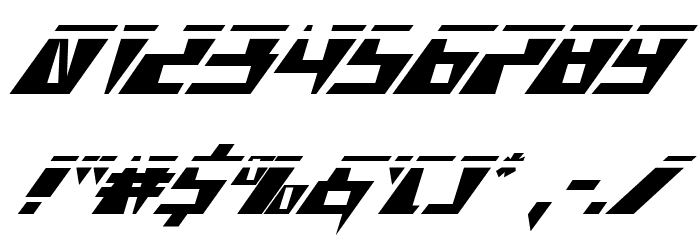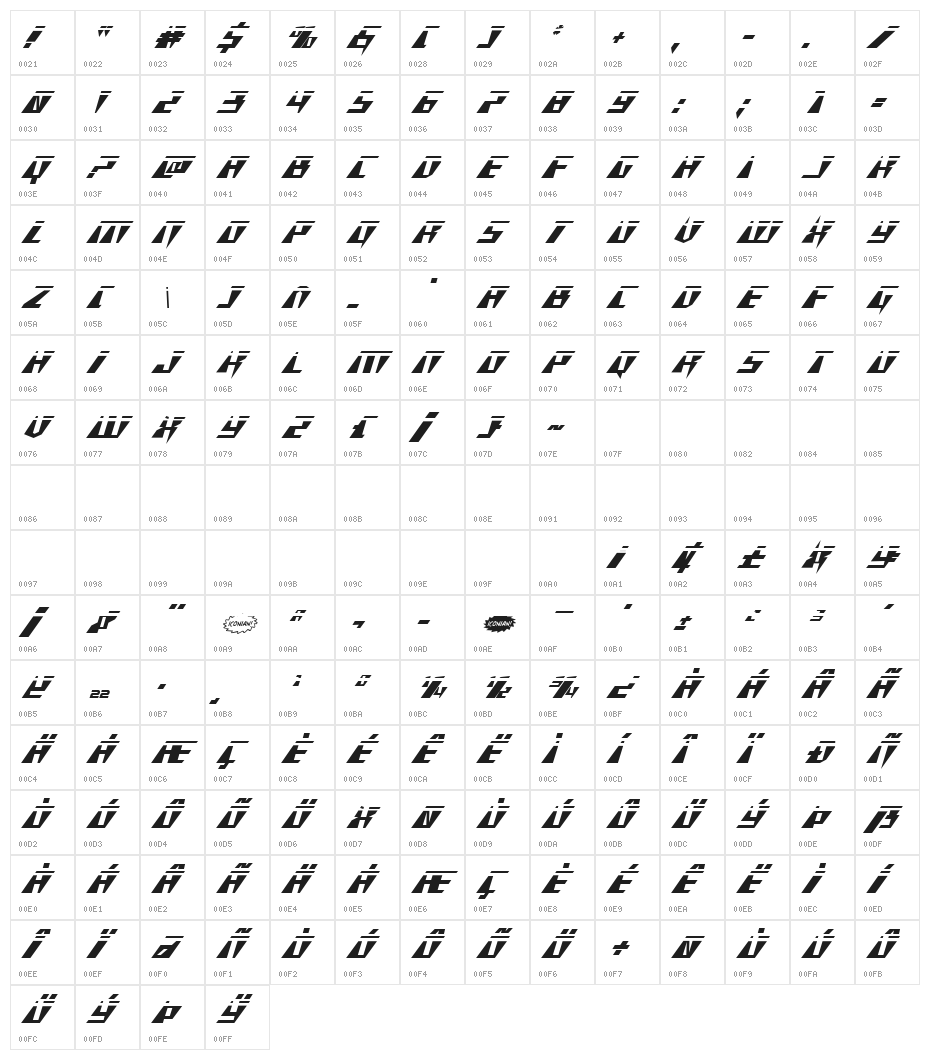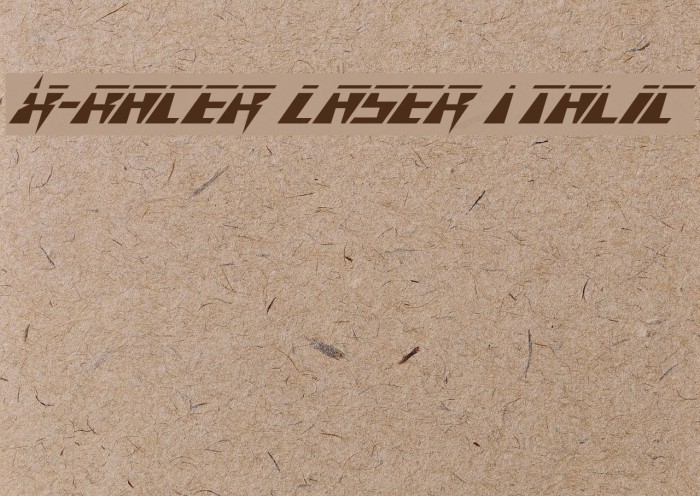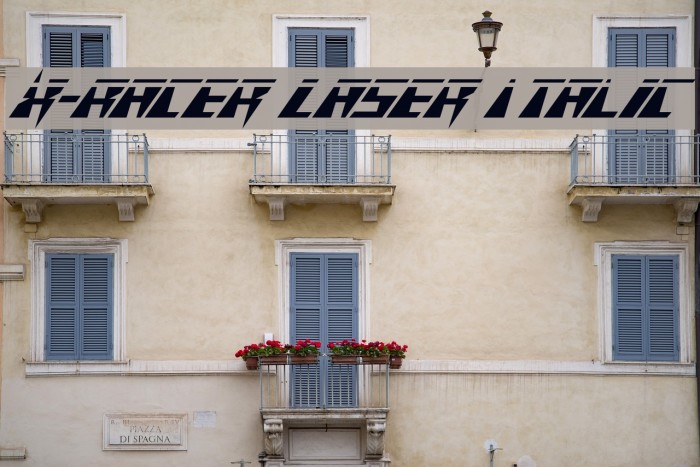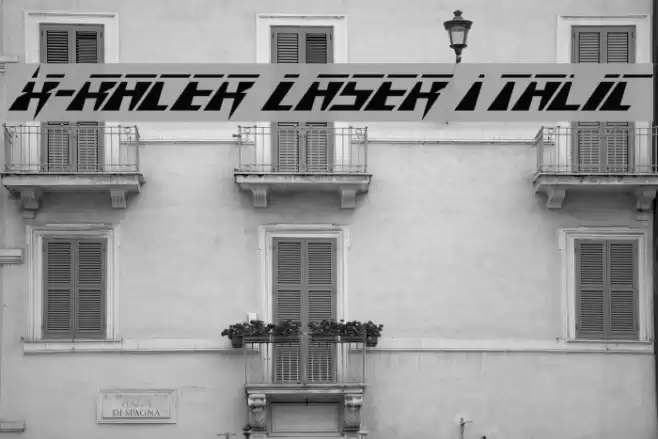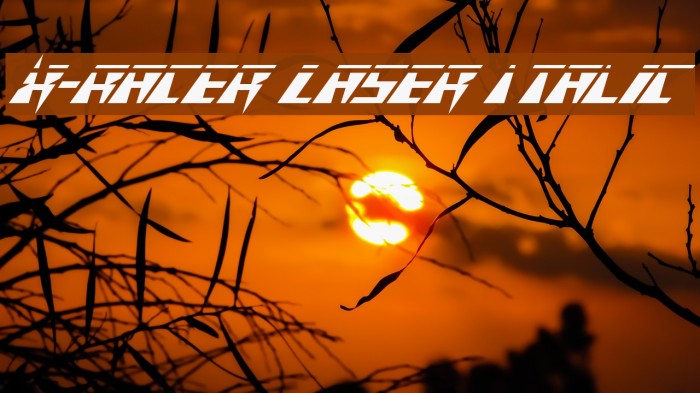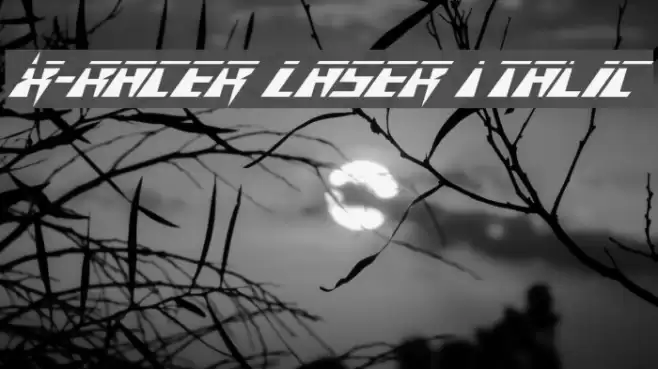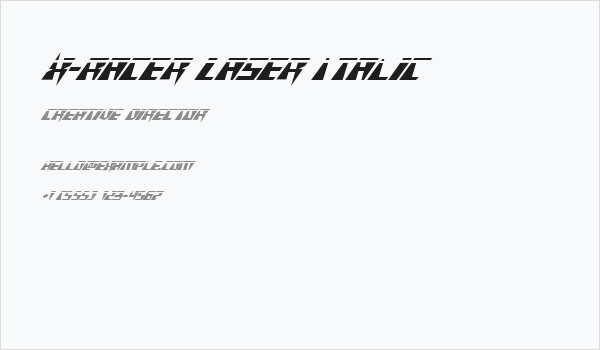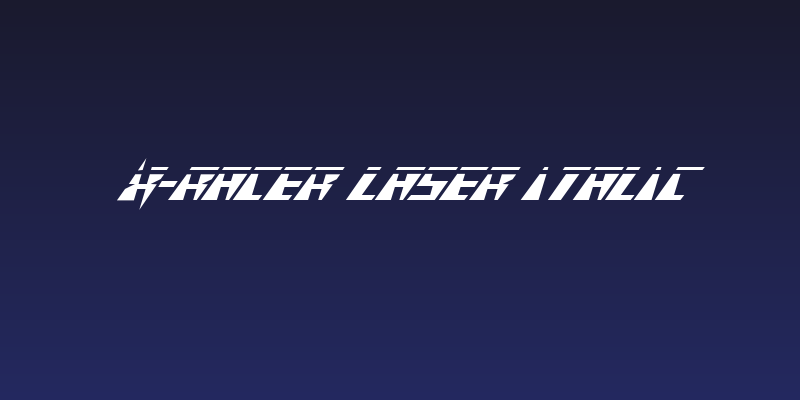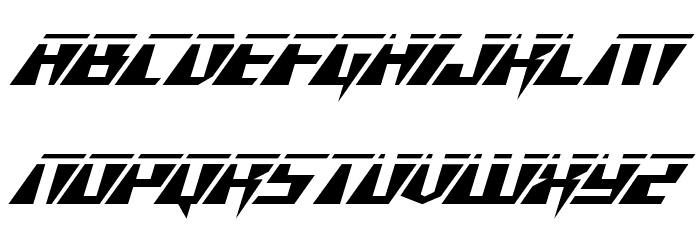
X-Racer Laser Italic Font
X-Racer Laser Italic Description
This font features a bold, futuristic design with sharp, angular lines and a distinct italic slant. The characters are tightly spaced, creating a compact and dynamic appearance. The uppercase and lowercase letters maintain a consistent style, emphasizing speed and movement. The numbers and special characters are designed with the same angular precision, making them stand out. This font is ideal for projects that require a modern, edgy look, such as technology branding, sports team logos, or sci-fi themed designs.
| Proposed Projects | Ideal for technology branding, sports logos, sci-fi themes, and dynamic posters. |